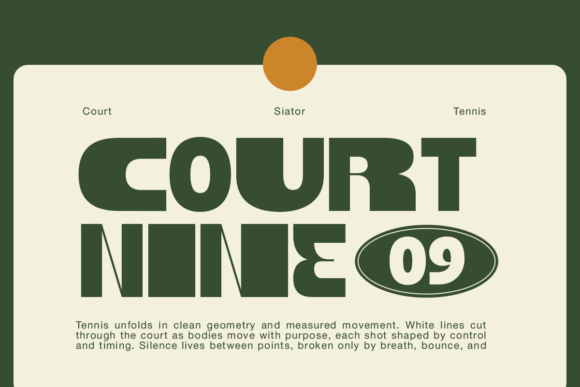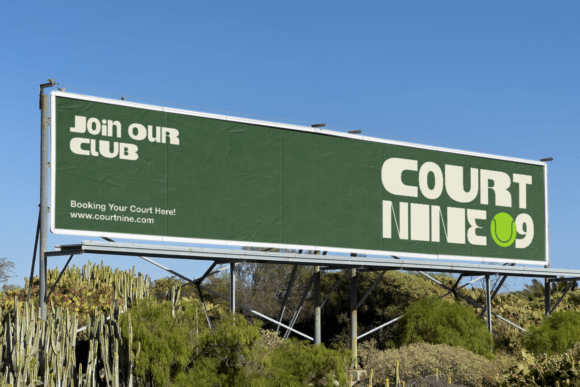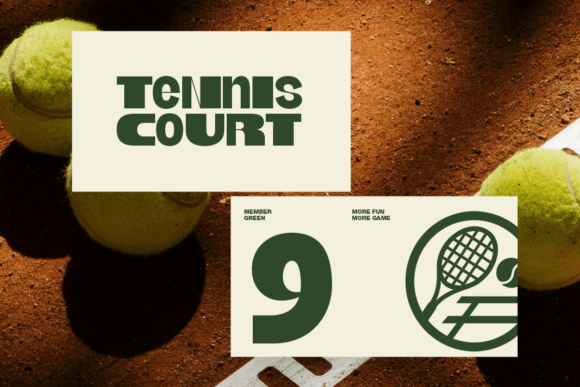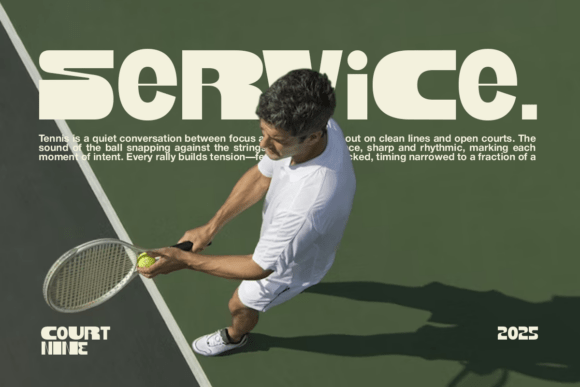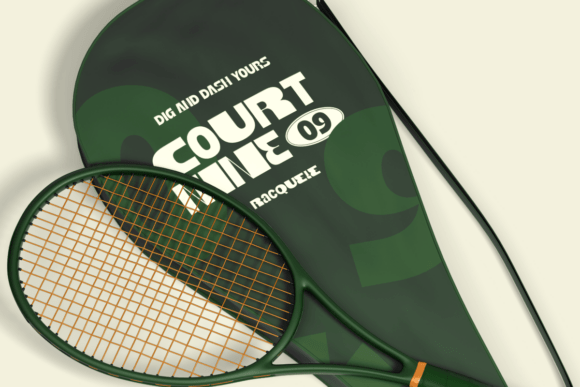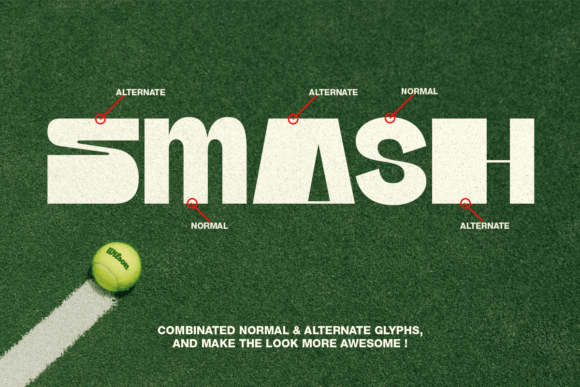
Introduction to Siator Font
As a designer, you know that the perfect font can make all the difference in a creative project. It’s that moment when you finally find the perfect combination of style, functionality, and attitude that brings your design to life. For those looking to add a touch of sports chic to their branding, we’re excited to introduce you to the Siator Font – a modern, sporty branding font designed to deliver strength, movement, and confidence.
With its clean geometric forms and sharp details, Siator Font is perfect for designers who want to create bold, competitive, and high-impact visuals across both digital and print media. Whether you’re working on a sports branding project, creating social media graphics, or designing event posters, Siator Font is an invaluable resource that will help you take your design to the next level.
As a high-quality design resource, Siator Font offers flexibility and versatility, making it an ideal choice for designers who want to create distinctive logos and custom lettering. Plus, with its transparent background and PUA encoding, you can easily access all special characters and decorative elements without additional software – making it a free download that’s truly priceless.
Key Features of Siator Font
- Features a unique, modern design with a transparent background, ideal for backgrounds and overlays.
- Siator Font is designed to be highly legible and versatile, making it suitable for a wide range of creative projects.
Honest Review: Siator Font
I recently had the chance to experiment with the Siator Font for a creative project, and I must say it’s a solid addition to any designer’s toolkit. The free download was a huge plus, and I was impressed by the high quality of the font. The transparent background made it easy to integrate with my design, and the flexibility to use it for both personal and commercial projects is a huge advantage.
What works well with the Siator Font is its versatility. It can be used for a wide range of design projects, from headers to body text, and its modern aesthetic makes it perfect for contemporary designs. The font’s bold lines and clean typography give it a professional look that’s hard to match.
However, there are a few limitations to consider. The font’s range is a bit limited, and it may not be suitable for more complex or intricate designs. Additionally, some users may find the font’s style a bit too modern or trendy.
Overall, I’d say the Siator Font is a great resource for designers looking for a high-quality, versatile font. While it may not be perfect for every project, it’s definitely worth considering for your next creative endeavor.
- ✨ Versatile and modern aesthetic
- ⚠️ Limited range of styles
- ⚠️ May be too trendy for some users
The Siator Font is a high-quality design resource ideal for creative projects. It’s commonly used in logo designs, social media graphics, and presentations. The transparent background feature makes it easy to use in designs with complex backgrounds.